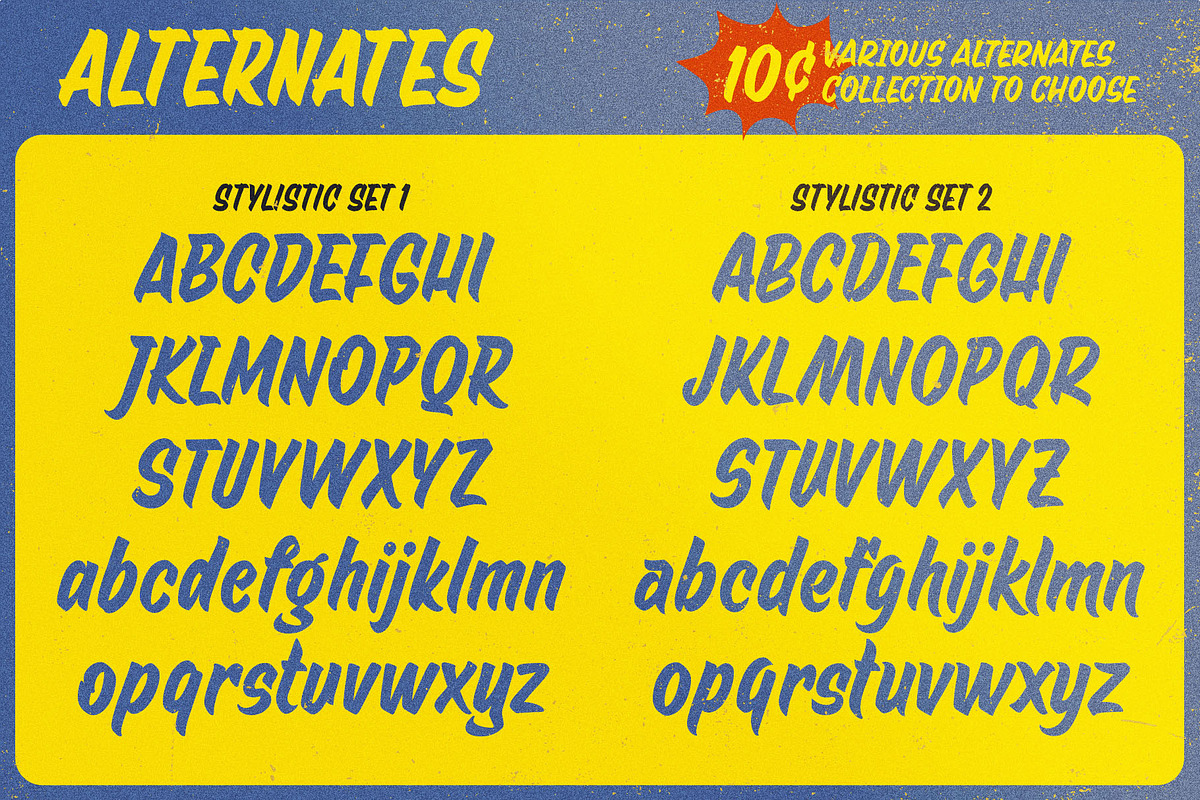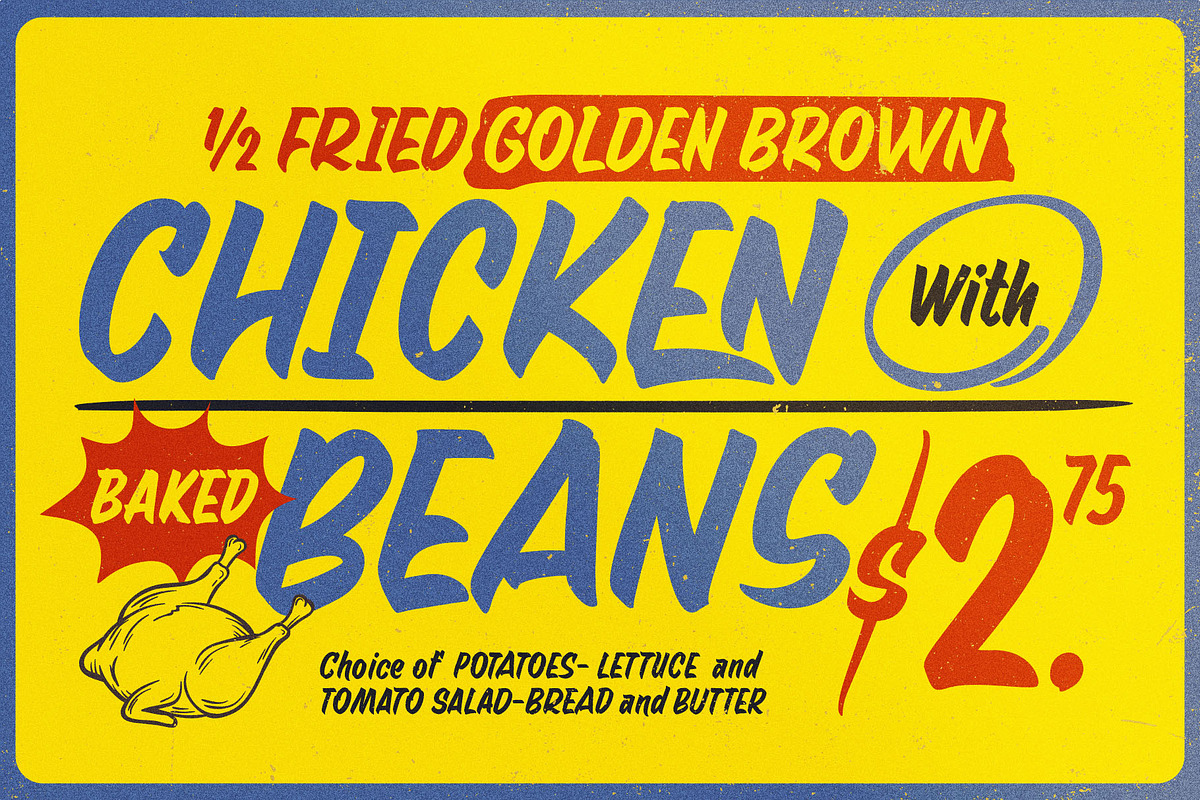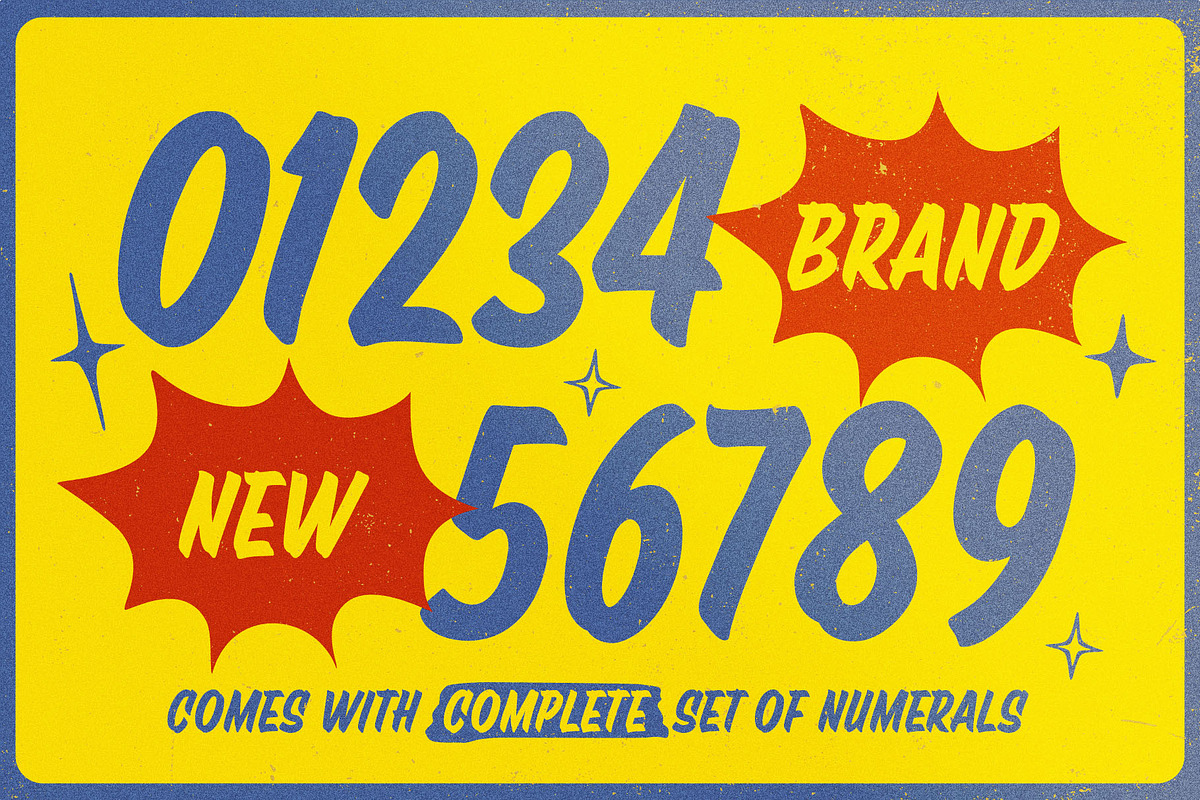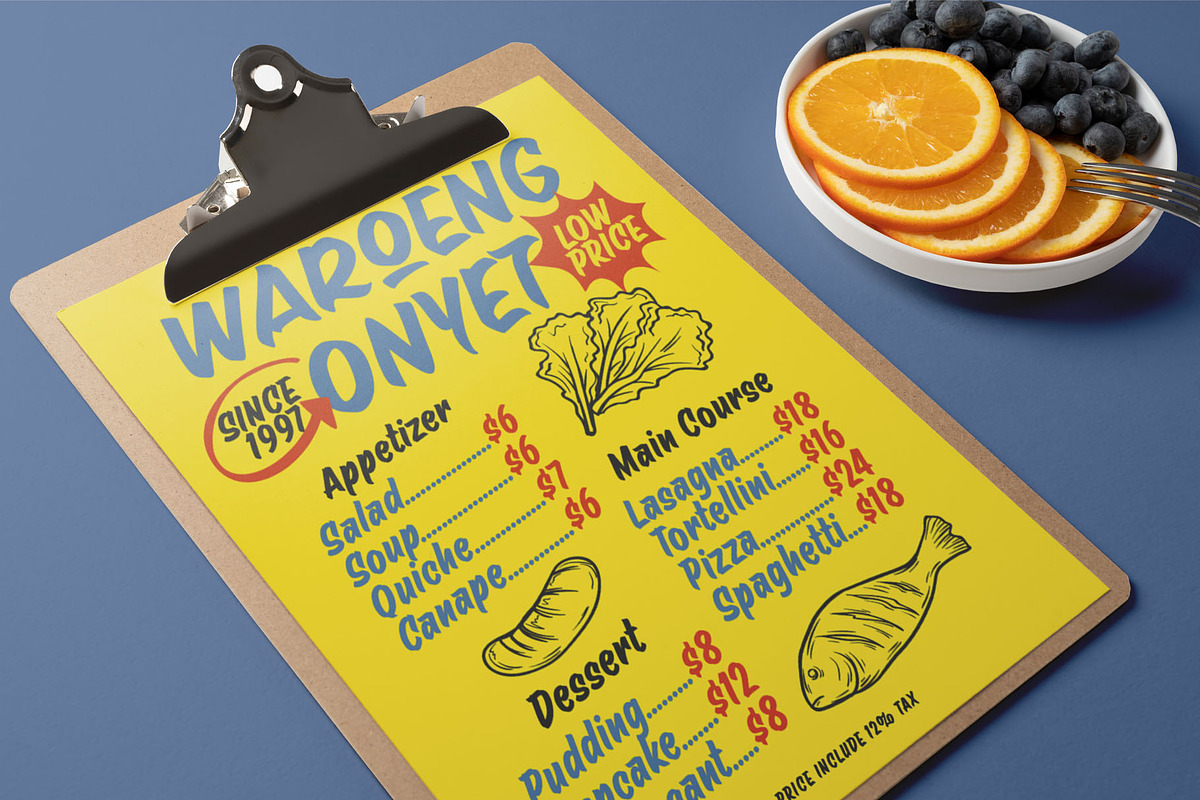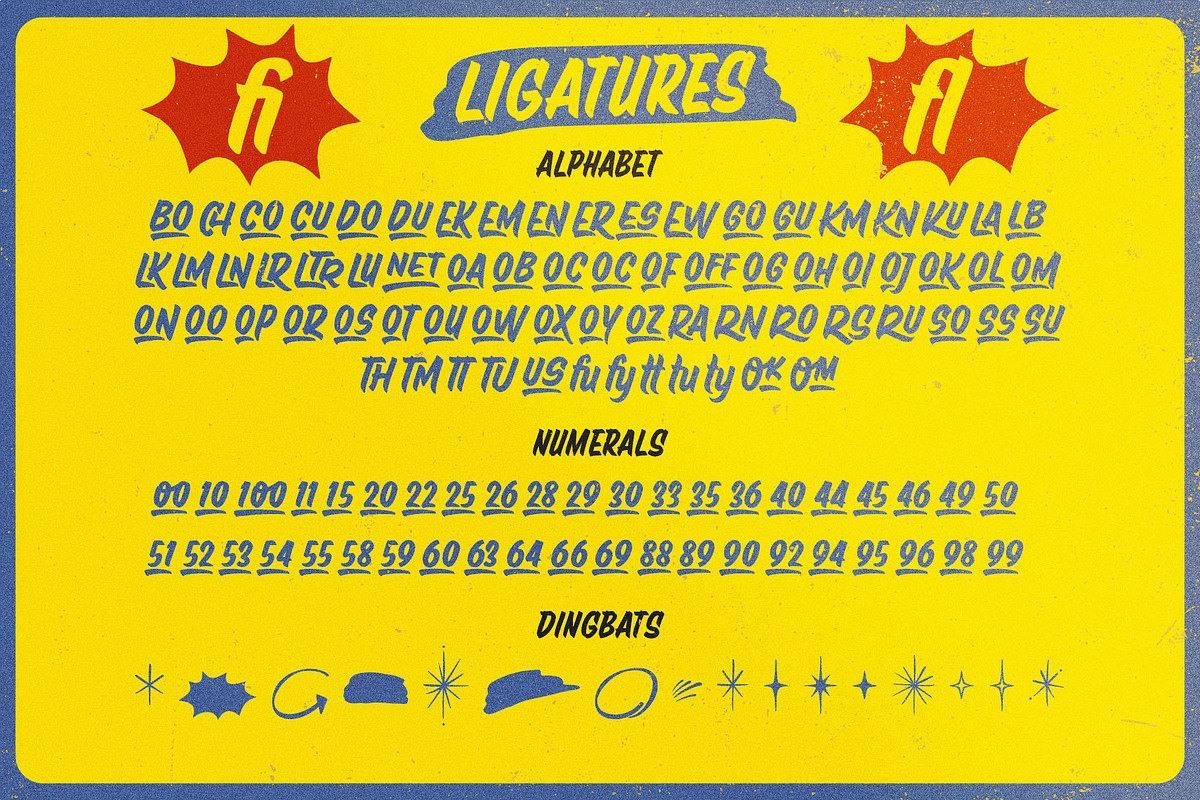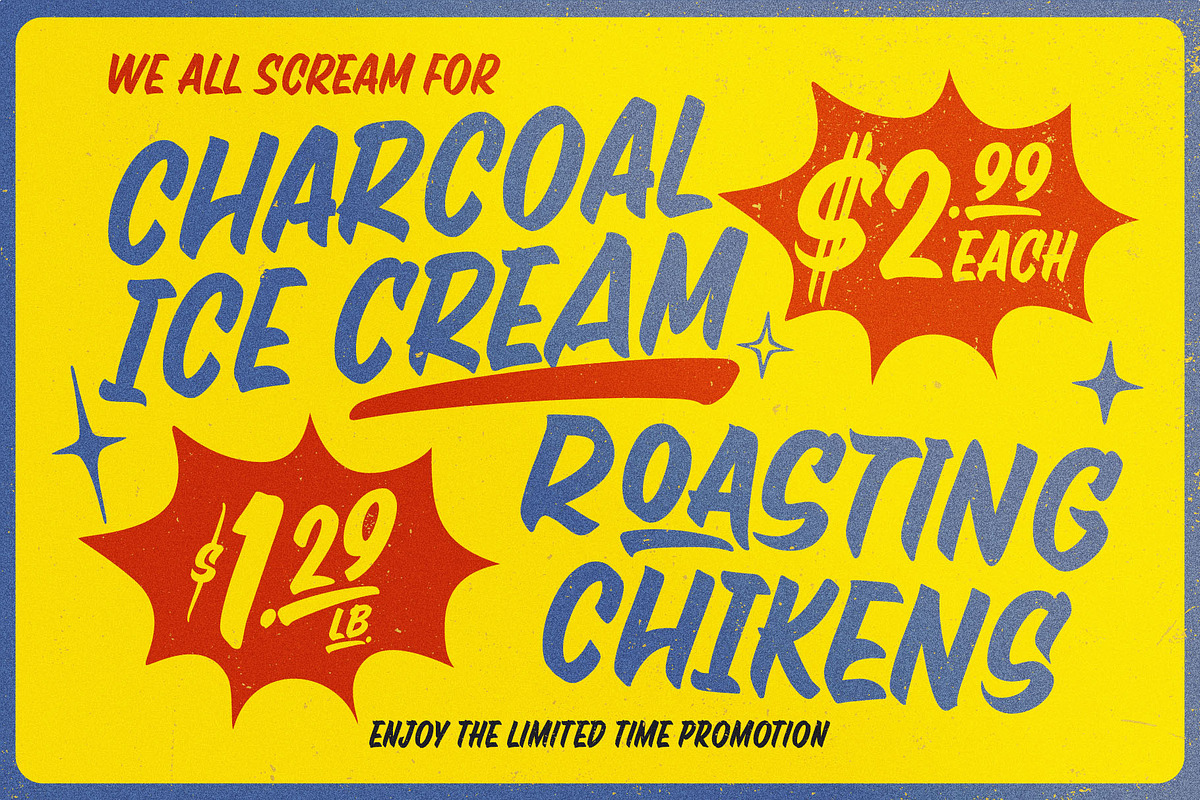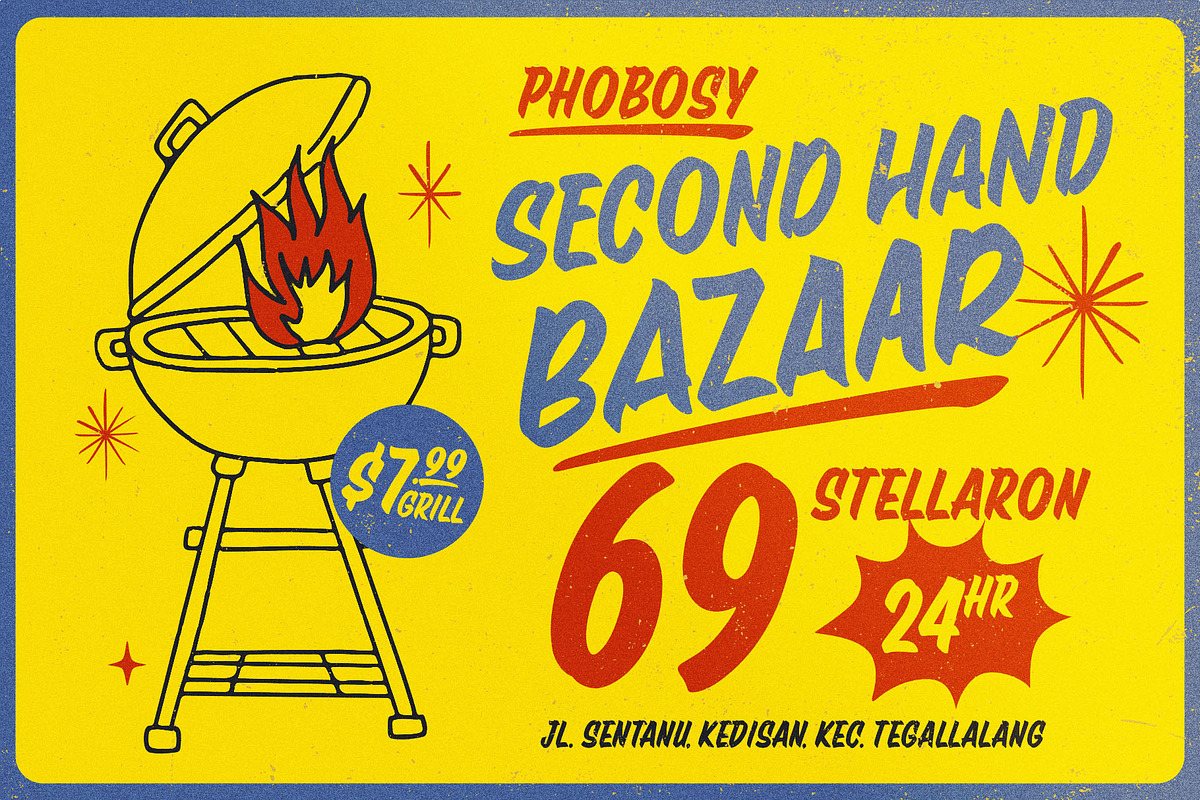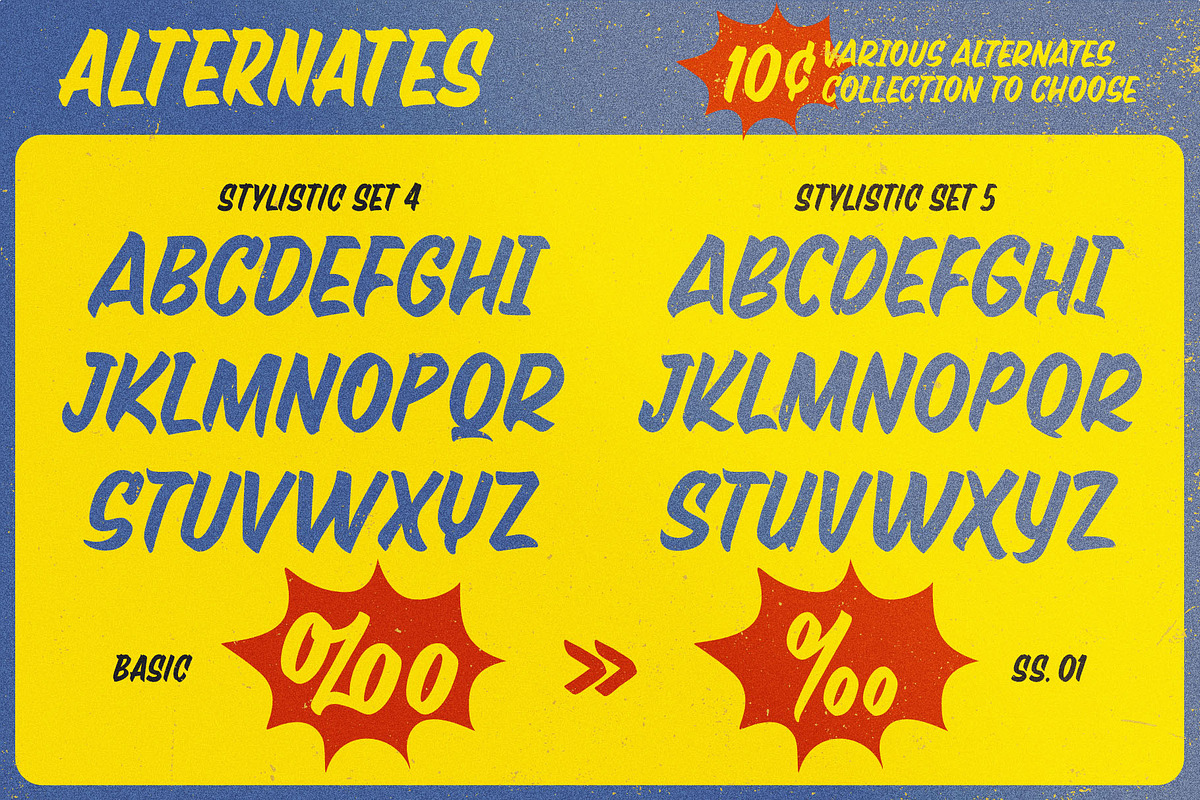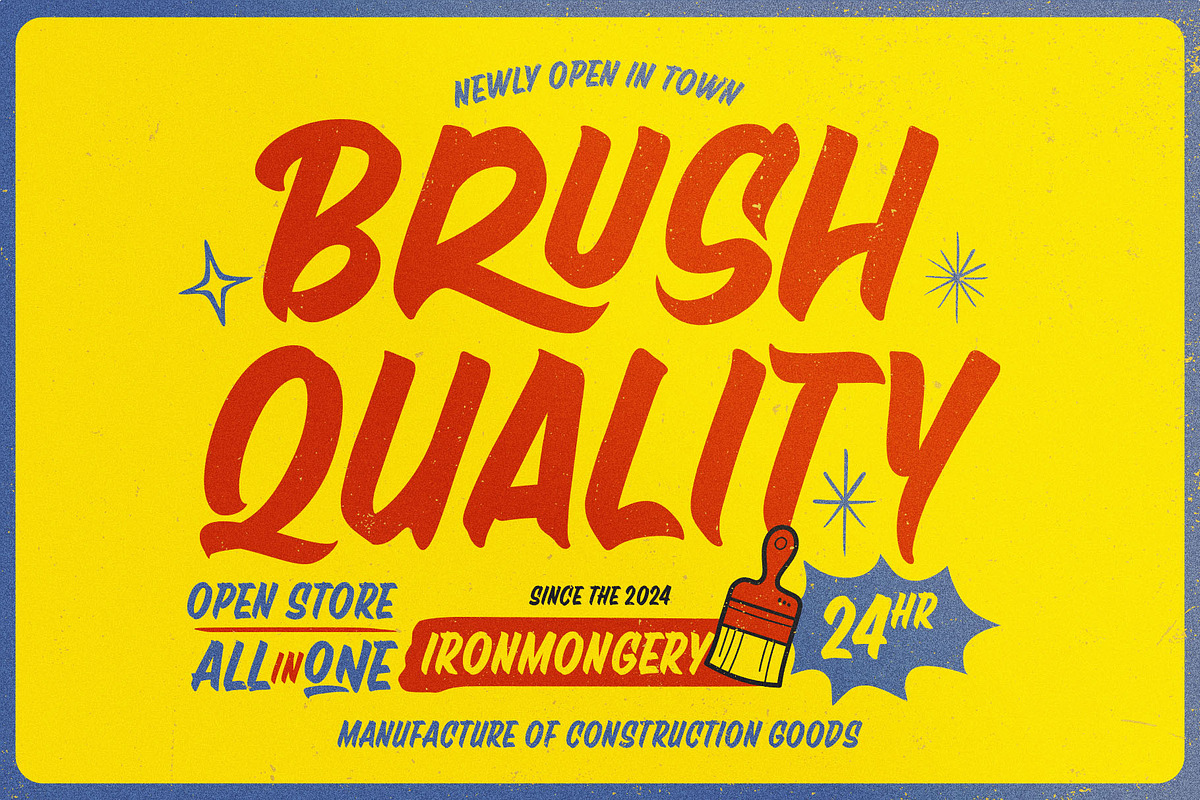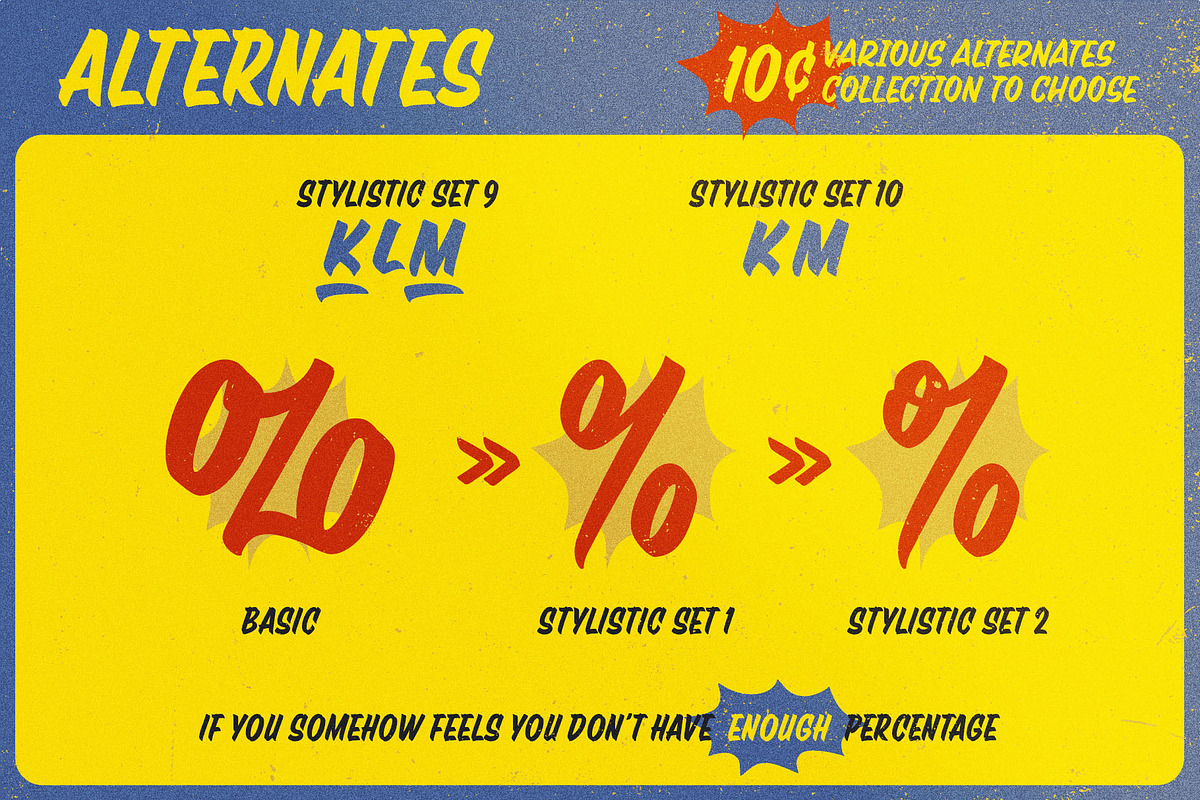
Owltail Brush Font
Owltail Brush – A Handwritten Vintage Sign Art Brush Font
Step into the world of vintage craftsmanship with Owltail Brush, a font that brings the charm of traditional hand-painted sign art to your fingertips. Perfect for designs that require an authentic, personal touch, Owltail Brush features fluid, brush-stroke lettering reminiscent of classic shop signs, street markets, and nostalgic advertisements. Whether you're working on retro-inspired branding, packaging, logos, posters, or creative social media content, this font will add a warm, handmade feel to your work.
850 Character Glyphs Owltail Brush is packed with 850 glyphs, offering you a treasure trove of characters. This extensive set includes uppercase and lowercase letters, numerals, punctuation, and a wide variety of special symbols. This wealth of glyphs allows for endless combinations, ensuring that your text always looks fresh and varied, as if drawn by hand.
Extensive Alternate Characters Make every word feel like it was personally handwritten. Owltail Brush comes with numerous alternate characters for both uppercase and lowercase letters. This allows you to effortlessly mix and match, creating a truly custom look. The variety of alternatives ensures your design doesn’t look repetitive, even in large blocks of text. These alternatives simulate the organic imperfections of hand-drawn brush strokes, lending an authentic handwritten vibe to your work.
Natural Ligatures To maintain the fluidity and realism of hand-lettering, Owltail Brush is equipped with carefully crafted ligatures. These ligatures automatically connect certain letter combinations, allowing the text to flow naturally without harsh breaks, just like real brush strokes. This feature enhances the overall cohesiveness of your designs, giving the font a smooth, handcrafted quality.
Dingbat Elements Owltail Brush doesn’t just stop at beautiful lettering; it also includes a set of hand-drawn dingbat elements. These dingbats, ranging from flourishes and ornaments to decorative symbols, can be used as accents in your designs. Whether you're framing your text or adding visual interest to a logo, these elements perfectly complement the brush-style aesthetic.
PUA Unicode Support Accessibility and ease of use are key features of Owltail Brush. With full PUA (Private Use Area) Unicode support, every glyph, alternate character, and dingbat is easily accessible across different design programs, even those without advanced glyph panels. This makes Owltail Brush a breeze to use, allowing you to fully unlock its potential without any hassle.
Multilingual Support Owltail Brush is designed to support a wide range of languages, including Latin-based alphabets. This makes it ideal for global branding and multilingual projects, where maintaining the consistent look and feel of your typography is critical. From English and French to Spanish, Portuguese, and more, this font ensures your message reaches audiences worldwide with the same handcrafted charm.
Perfect for a Variety of Design Projects:
- Vintage Logos and Branding: Use Owltail Brush to give your logos a timeless, handcrafted feel that resonates with authenticity and nostalgia.
- Posters and Flyers: The bold, flowing strokes of this font make it a standout choice for vintage posters, events, and promotional materials.
- Packaging and Labels: Add a unique personal touch to product labels and packaging, whether for food, beverages, or handmade goods.
- Social Media Graphics: Create eye-catching, retro-themed social media posts, headers, and story highlights that stand out with their organic look.
- Custom Signage: If you’re aiming for a hand-painted sign effect in digital or print, Owltail Brush will give your text that classic, brushed-on appearance.
Why Choose Owltail Brush? Owltail Brush offers a complete toolkit for anyone seeking an authentic, hand-lettered look in their designs. The combination of versatile glyphs, extensive alternates, natural ligatures, and decorative dingbats makes it a must-have for designers working on vintage-inspired projects. The ease of access through PUA Unicode, along with its support for multiple languages, ensures that this font can adapt to any creative need.
Whether you're designing for a small craft brand or a large-scale marketing campaign, Owltail Brush delivers a genuine, handcrafted aesthetic that will make your work stand out with a sense of history and artistry. Bring the classic art of brush lettering back to life with Owltail Brush!